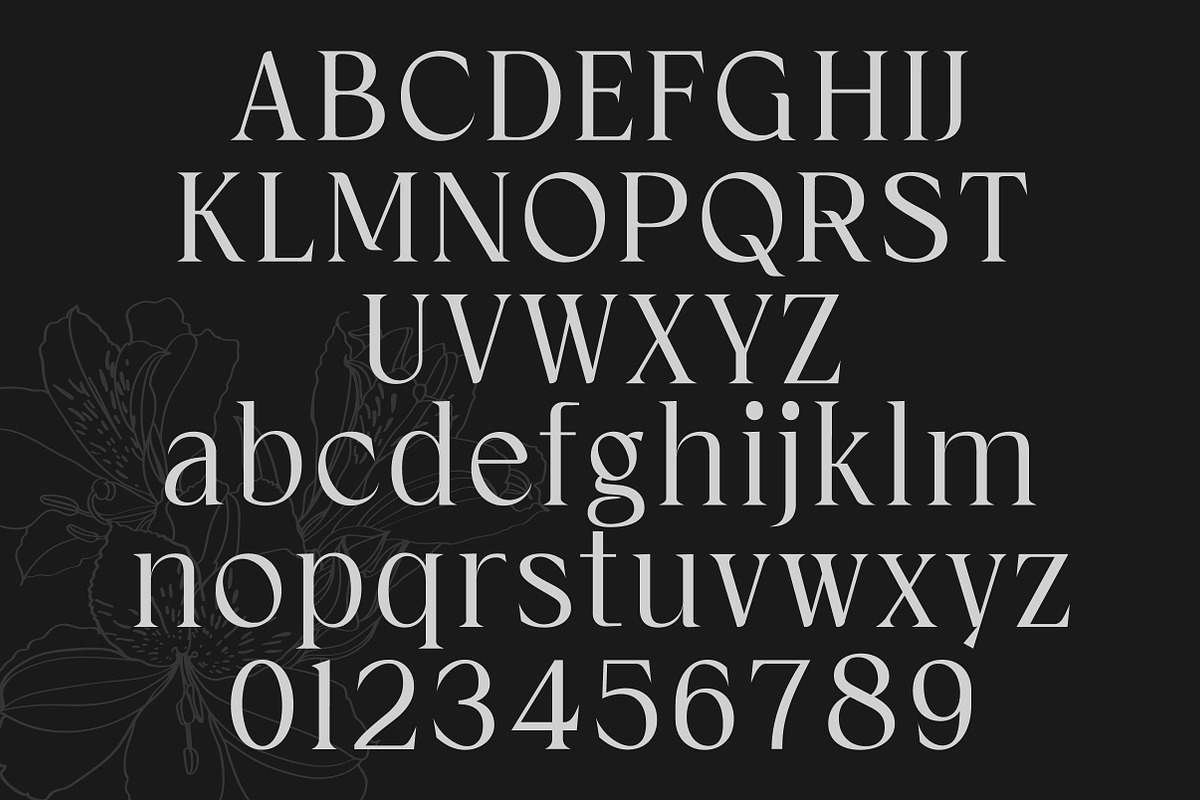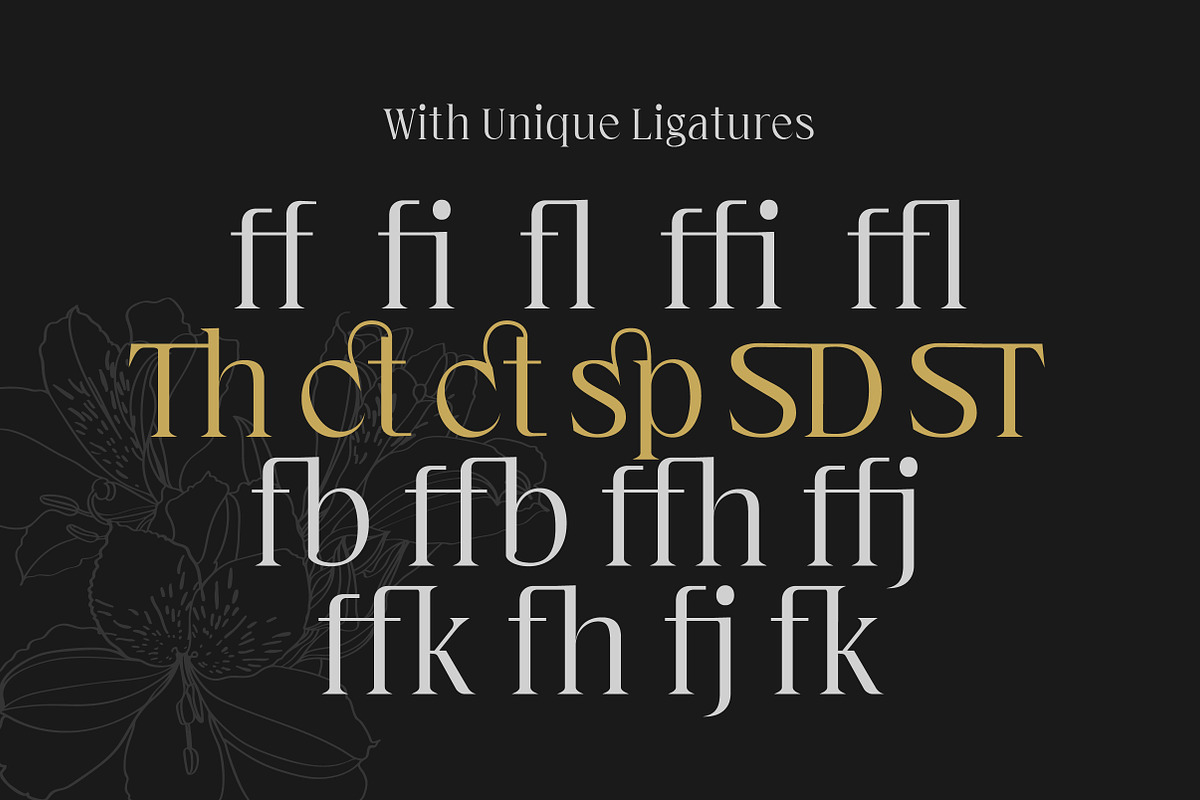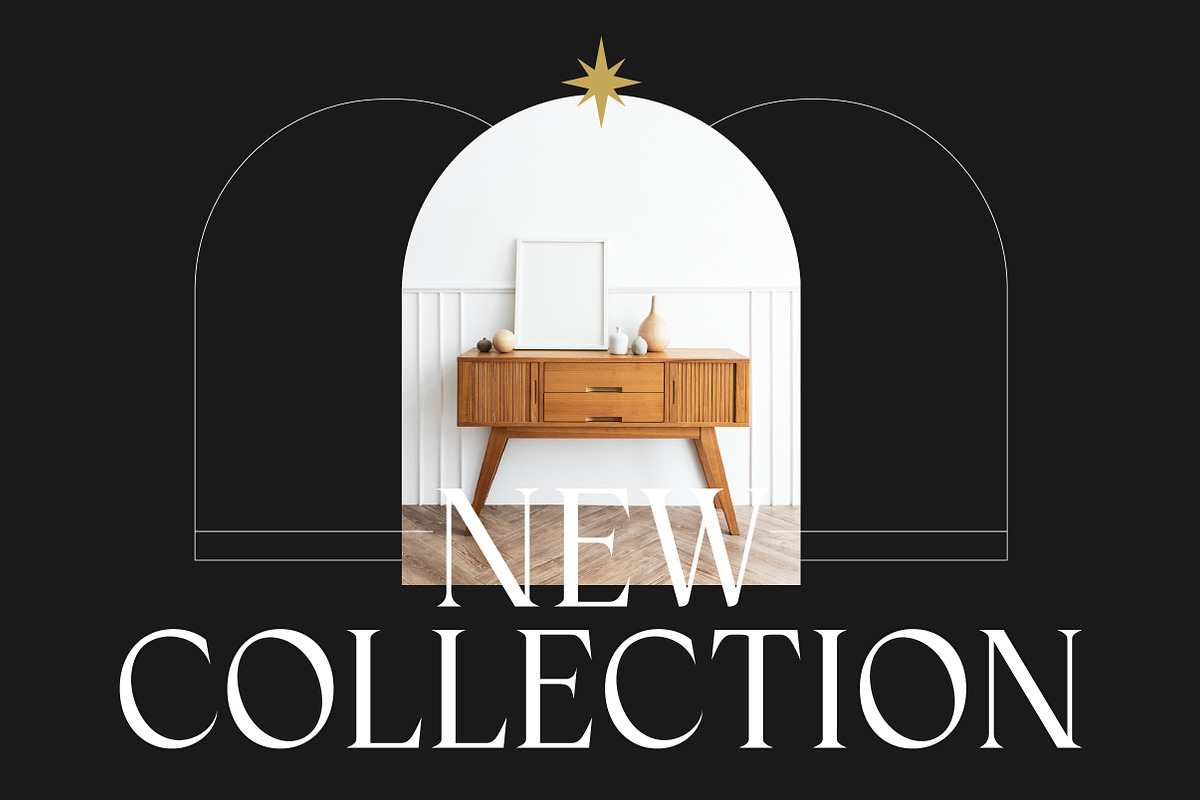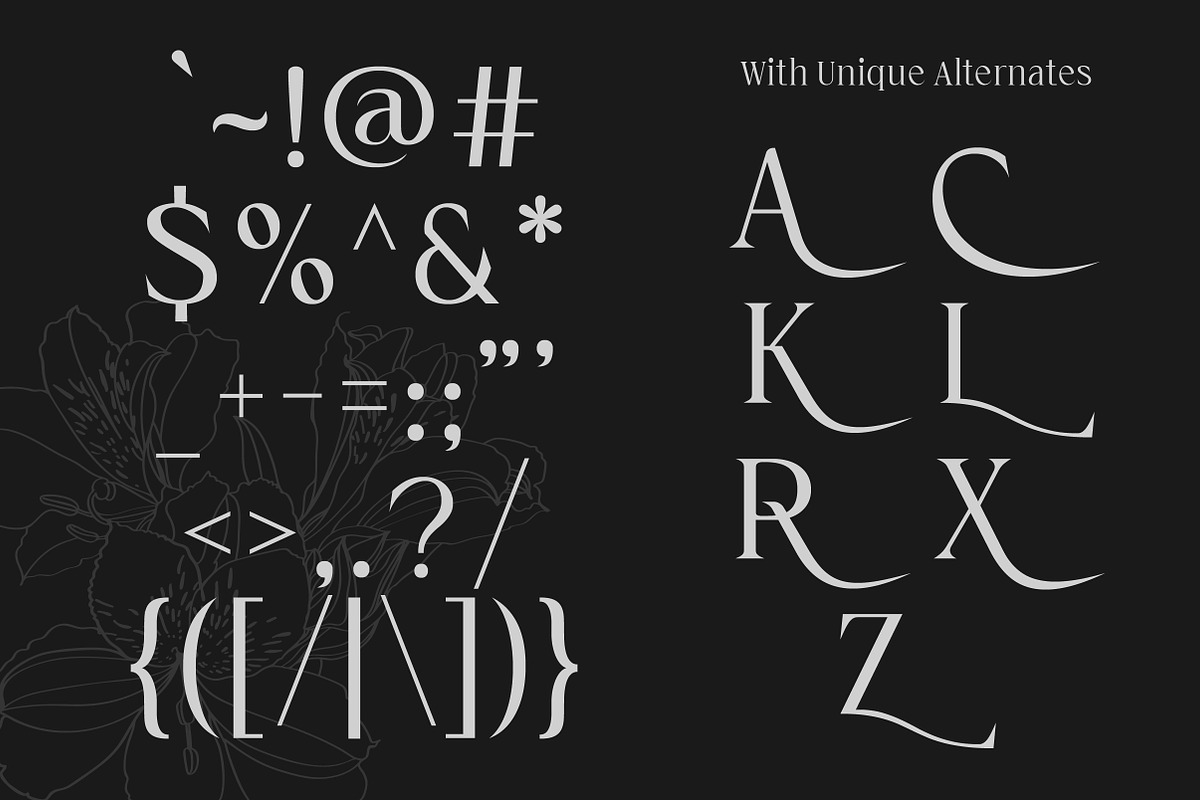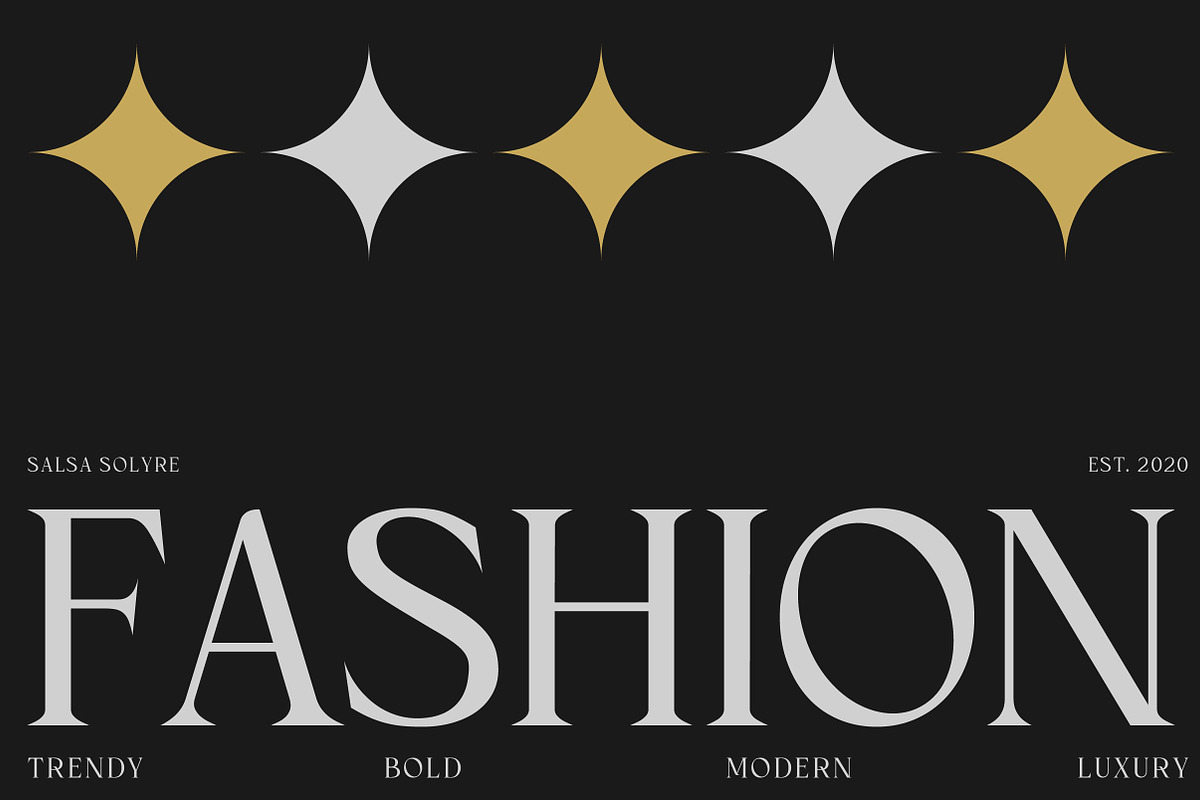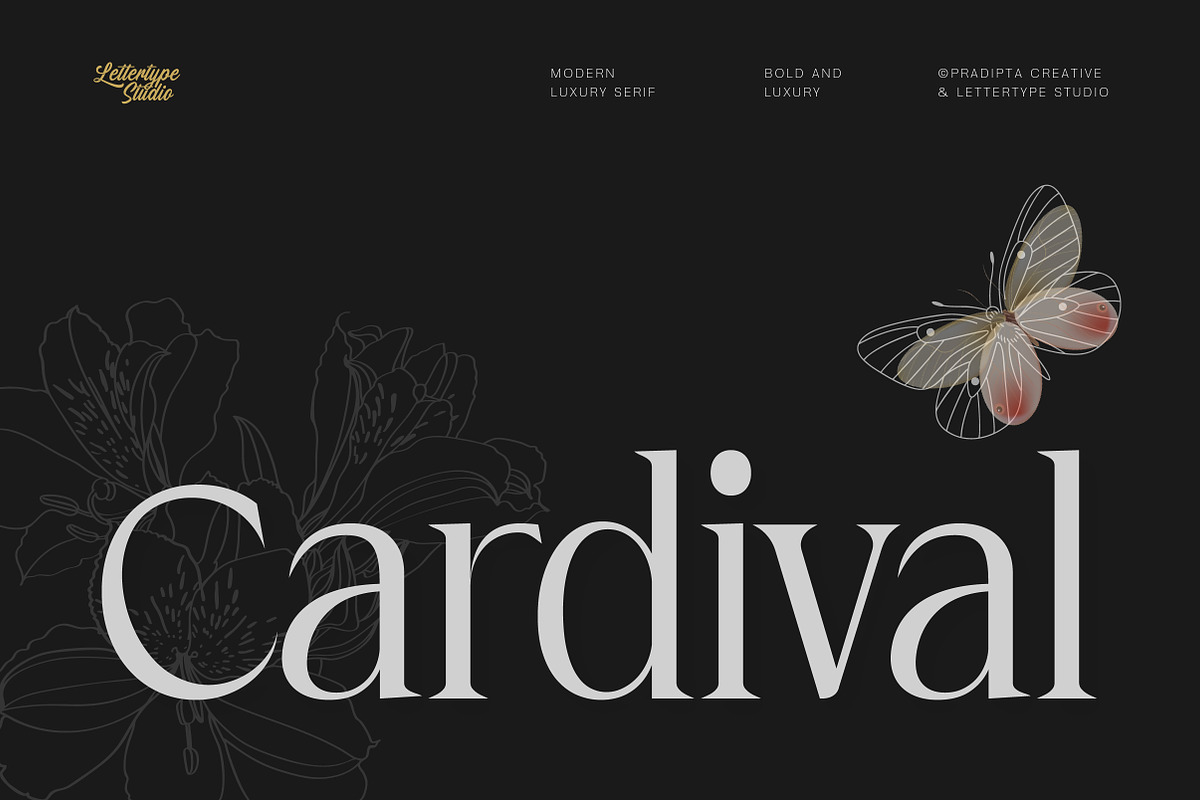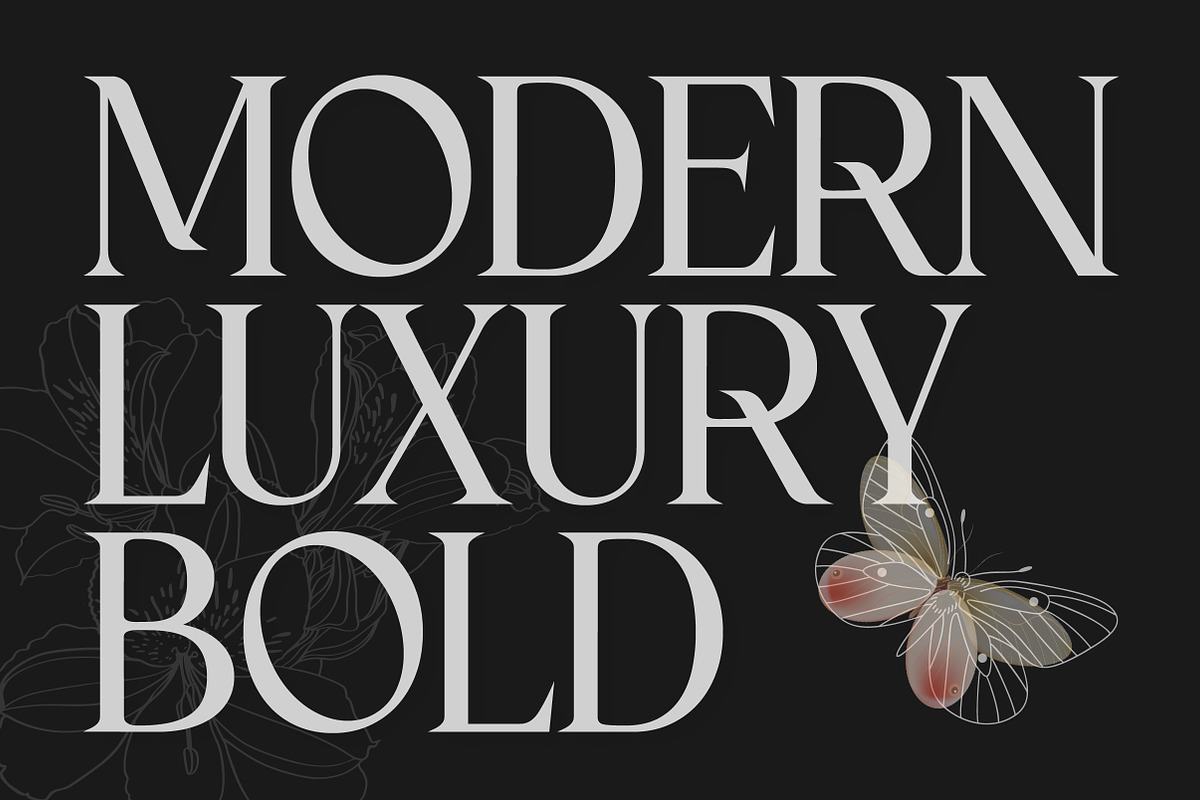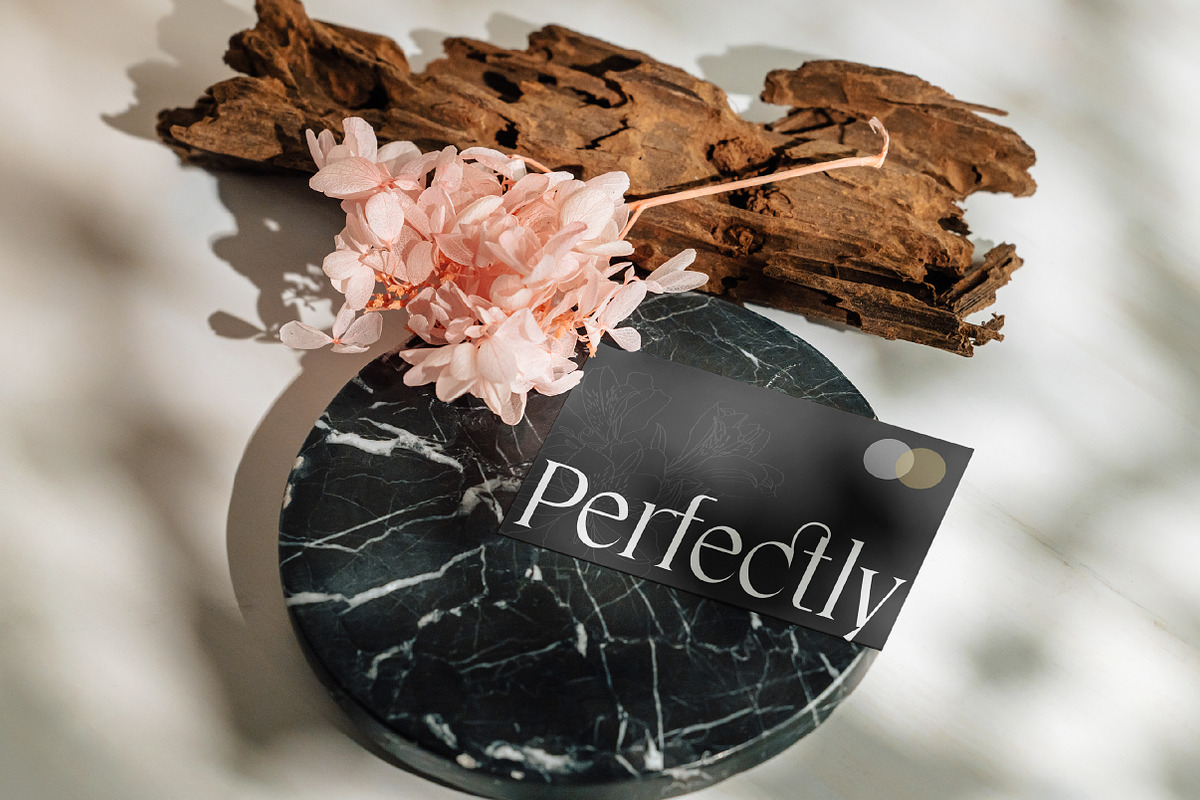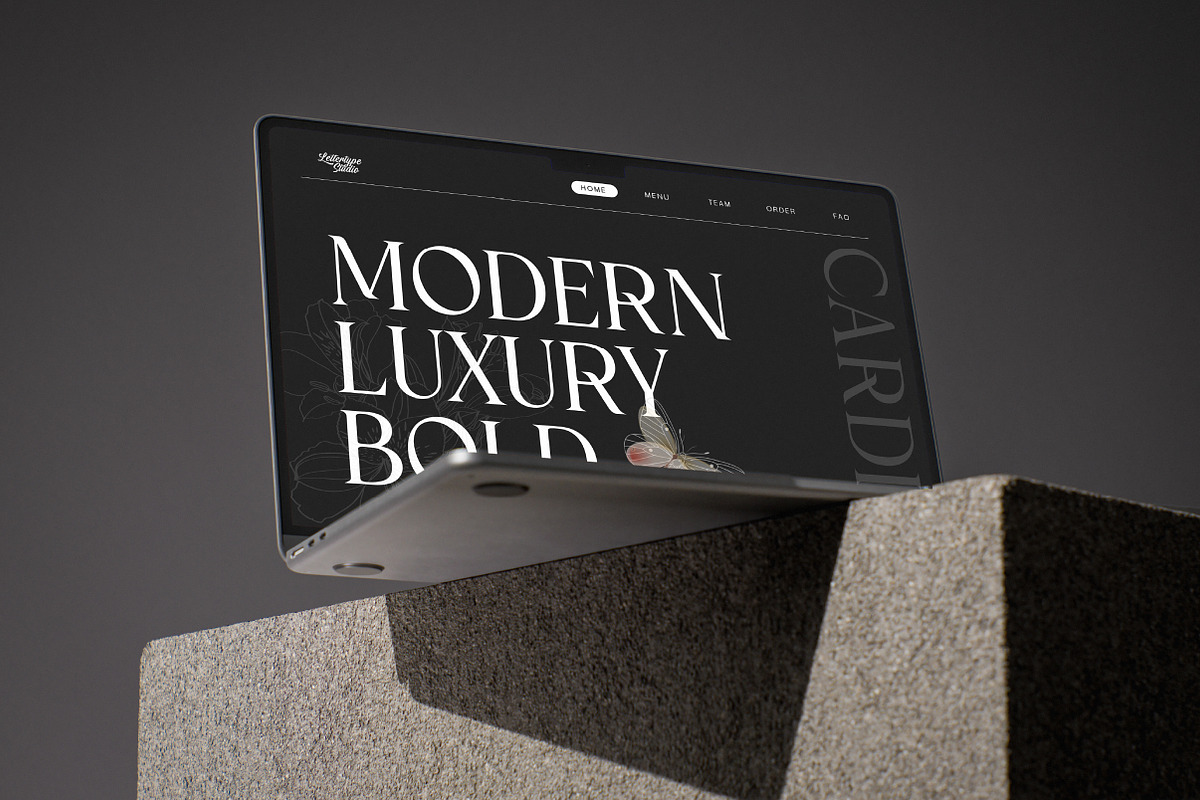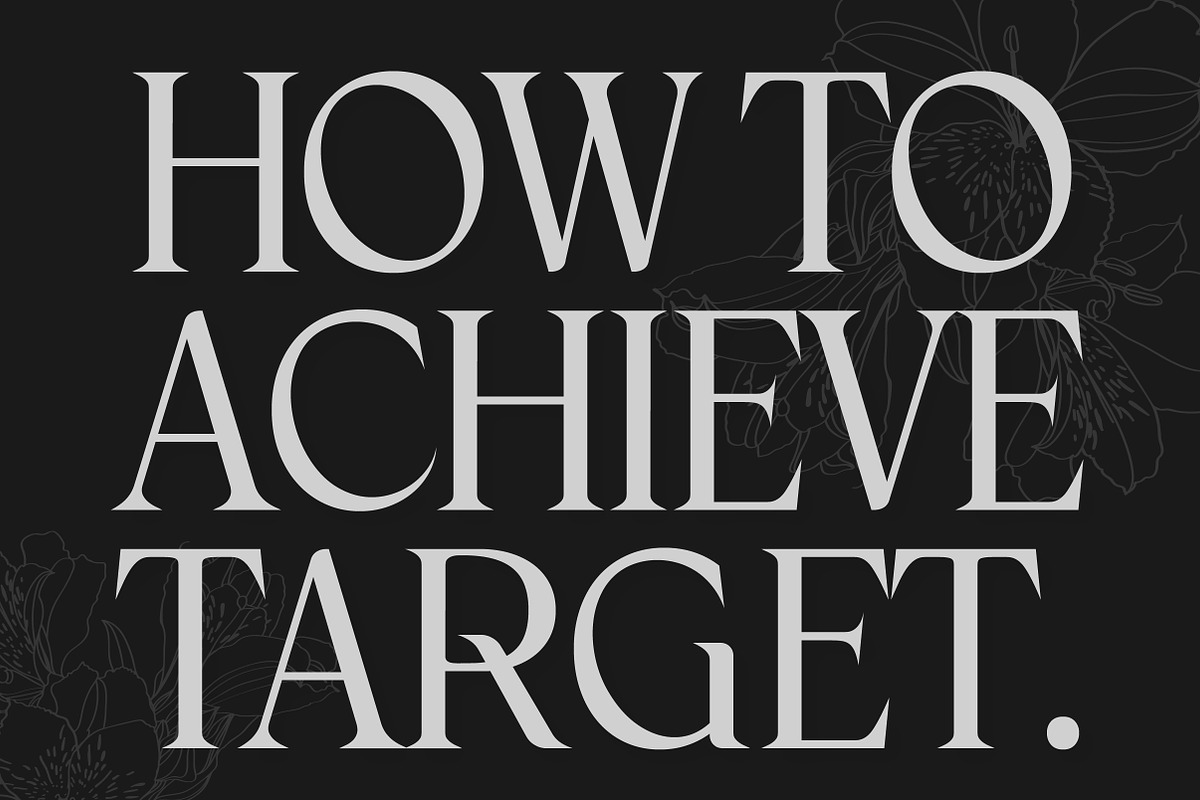
Cardival – Modern Luxury Bold Serif
Cardival Modern Luxury Bold is a striking serif font that combines boldness with modern luxury. Designed with clean lines, sharp contrasts, and elegant curves, it’s perfect for branding projects that demand sophistication and class. Ideal for high-end brands, fashion lines, editorial headlines, and any design that needs a touch of elegance. This typeface speaks to those who appreciate modern, luxurious aesthetics and want to stand out with a strong, bold statement.
Cardival Modern Luxury Bold is the ultimate font for brands and projects looking to convey a sense of prestige and contemporary style. With its sharp, modern feel, this luxury serif font works flawlessly in logos, magazine layouts, advertisements, and premium packaging. Featuring impeccable readability and a touch of timeless elegance, Cardival brings sophistication to modern design. This font is a must-have for designers seeking to elevate their branding and make a lasting impression.
Cardival Features:
- 1 Styles in Upright
- 7 Alternates & 14 Unique Ligatures
- 454 Glyphs Total
- 260+ Languages Support
- Luxury branding, fashion editorials & premium packaging
- High-end logo design, monograms & visual identities
- Magazine headlines, advertising & lookbooks
- Elegant posters, invitations & social media visuals
- Boutique stores & beauty product branding